Alien fonts are exactly what they sound like – typefaces featuring strange, extraterrestrial letterforms, often with a futuristic or unconventional style. They have an uncanny, unfamiliar quality that feels both foreign and fascinating.
In this post, I’ll be diving deep into the best alien fonts to try in 2026. Let’s go!
My Favorite Alien Fonts of 2026
Let’s face it, not all alien fonts are created equally. So I’ve compiled a list of my favorite “out-of-this-world” alien fonts at the moment. Here they are:
Alien Hunter
Alien Hunter is a fun and playful display font that brings a touch of whimsy to alien-themed designs. Its decorative nature makes it perfect for creating eye-catching titles and headers in projects related to sci-fi or space exploration.
Space 51
Space 51 is a clean and simple sans-serif font family with a modern twist. Its sleek design makes it perfect for headlines and magazine layouts, offering a contemporary and sophisticated look for various design projects.
Planet Adventure
Planet Adventure is a sci-fi futuristic font that embodies the spirit of cosmic exploration. Its digital-inspired design makes it ideal for technology-related projects, video game interfaces, and designs that require a cutting-edge, space-age aesthetic.
Planet Font
Planet Font is a fun drop-shadow font that captures the rudimentary nature of space and celestial bodies. Its unique design makes it ideal for projects related to astronomy, space exploration, and sci-fi themes, adding a touch of cosmic wonder to various designs.
Pondar
Pondar is a modern futuristic typeface that exudes a sense of innovation and cutting-edge design. Its unique letterforms make it ideal for app interfaces and tech-related projects, giving them a forward-thinking and sleek appearance.
Alien Space
Alien Space is a sans-serif font that captures the essence of otherworldly exploration. Its design is perfect for gaming-related projects, conveying a sense of mystery and adventure associated with extraterrestrial themes.
Cute Alien
Cute Alien is a charming display font that combines script and sans-serif styles. Its playful and friendly appearance makes it ideal for children’s books, fun projects, and designs aimed at a younger audience.
Kaby Alien
Kaby Alien is a unique serif font with an extraterrestrial twist. Its distinctive letterforms make it perfect for creating memorable logos and alphabets, adding a touch of otherworldly charm to various design projects.
AN Alien Spaceship
AN Alien Spaceship is a strong, bold sans-serif font that commands attention. Its robust design makes it suitable for American-style branding and sports-related projects, particularly in the basketball realm.
Helios Typeface
Helios Typeface is a decorative sans-serif font with a rounded, friendly appearance. Its smooth curves and clean lines make it versatile for various design applications, from branding to digital interfaces.
Requiem Typeface
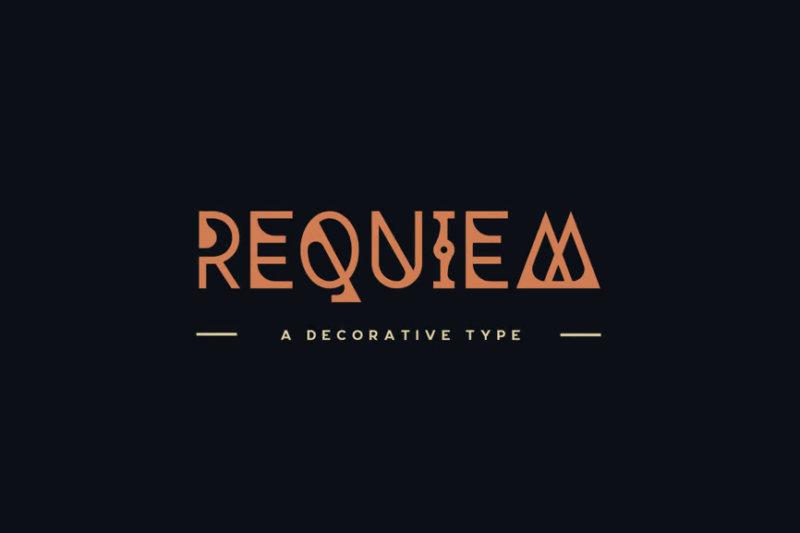
Requiem Typeface is a decorative sans-serif font that blends sacred and alien aesthetics. Its unique design makes it perfect for projects that require a touch of mystique and otherworldliness, such as book covers or movie posters.
Casiopeia
Casiopeia is a futuristic sans-serif font with a decorative flair. Its sci-fi inspired design makes it ideal for tech-related projects, giving them a cutting-edge and forward-thinking appearance.
Astrobia
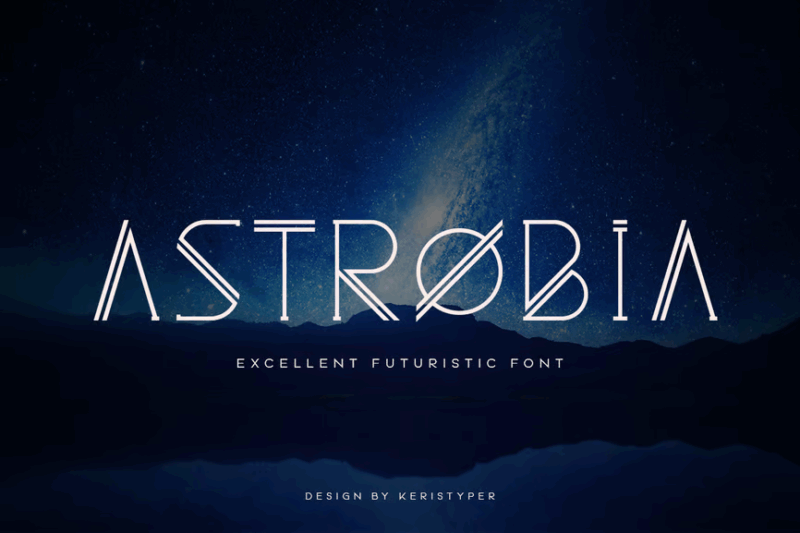
Astrobia is an excellent futuristic sans-serif font that embodies the essence of science fiction. Its sleek and modern design makes it perfect for projects related to space, technology, and futuristic themes.
Codevein
Codevein is a futuristic cyberpunk typeface that combines sans-serif and decorative elements. Its modern and edgy design makes it ideal for display purposes in tech-related projects and contemporary designs.
Alfa
Alfa is a minimal science font with a decorative touch. Its clean and streamlined design makes it perfect for scientific publications, research presentations, and projects that require a modern yet academic feel.
Atomic Blip
Atomic Blip is a retro-futuristic sans-serif font that combines vintage charm with a futuristic edge. Its unique design makes it perfect for projects that aim to evoke a sense of nostalgia while maintaining a forward-looking aesthetic.
Alterwave
Alterwave is a modern sans-serif font family that offers versatility and style. Its clean lines and contemporary design make it suitable for a wide range of projects, from branding to digital interfaces.
Astrokidz
Astrokidz is a fun font with an alien twist. Its whimsical design makes it perfect for children’s books, educational materials, and projects aimed at a younger audience with a space or sci-fi theme.
Alien fonts transmit mystery and otherworldliness into designs meant to transport audiences to different worlds. Their unusual forms ensure visual intrigue and help establish unique narrative contexts.
So try out some of these extraordinary alien fonts in your own sci-fi projects. Used thoughtfully, they build memorable designs certain to make viewers feel they’ve encountered something truly not of this Earth.